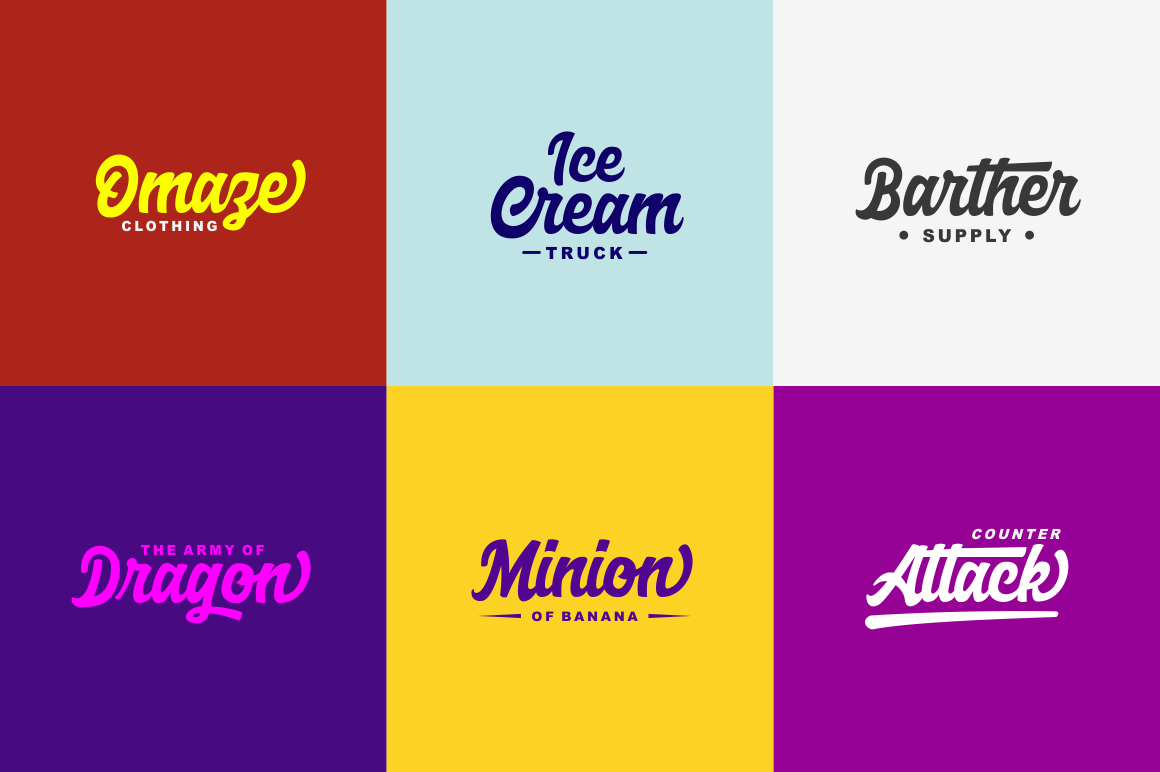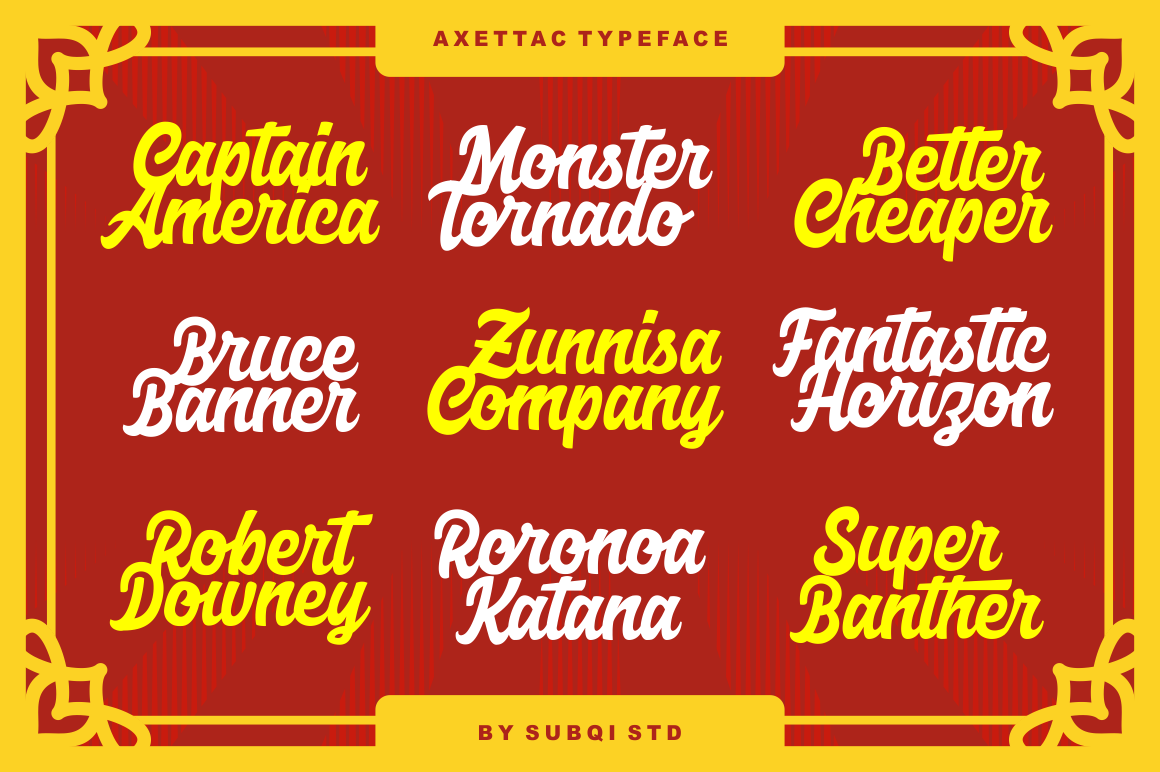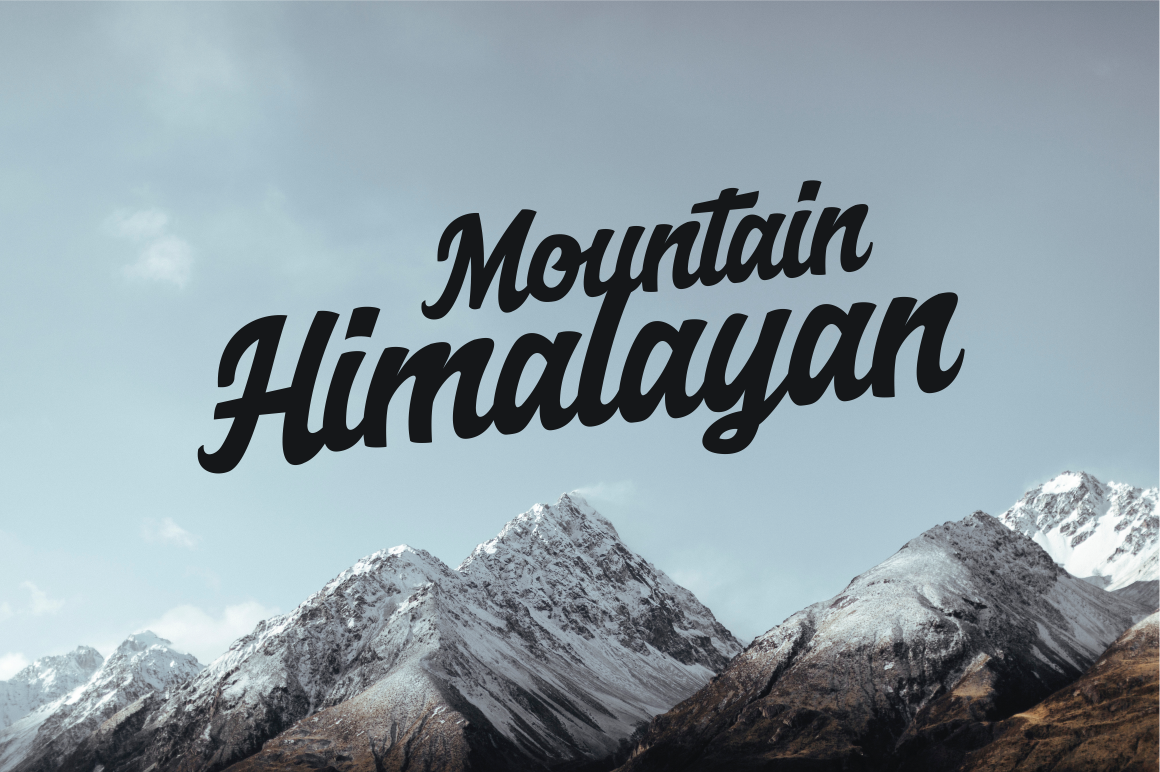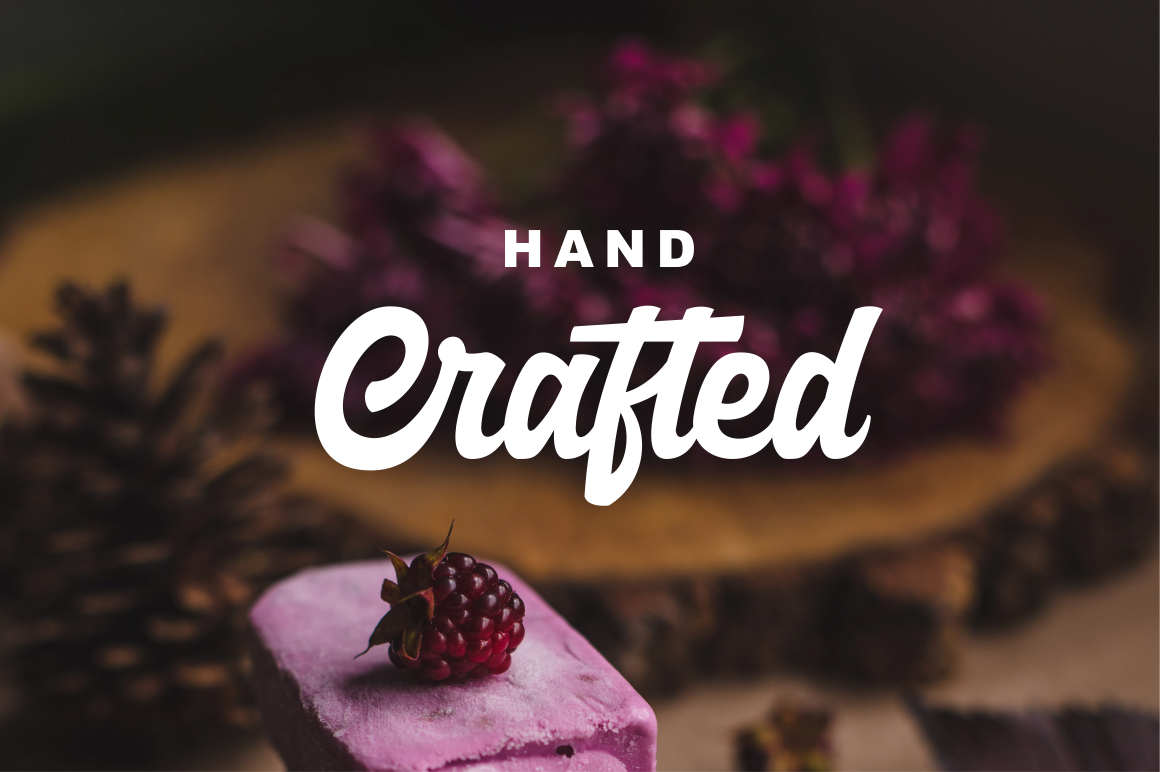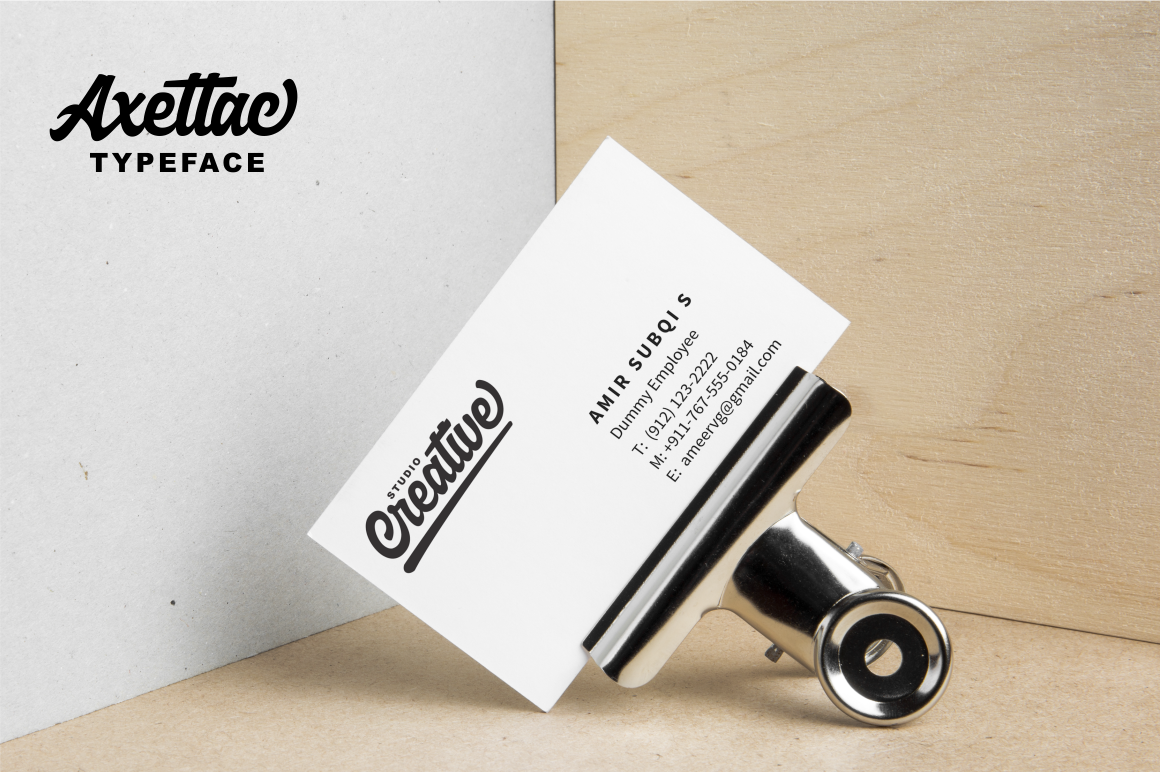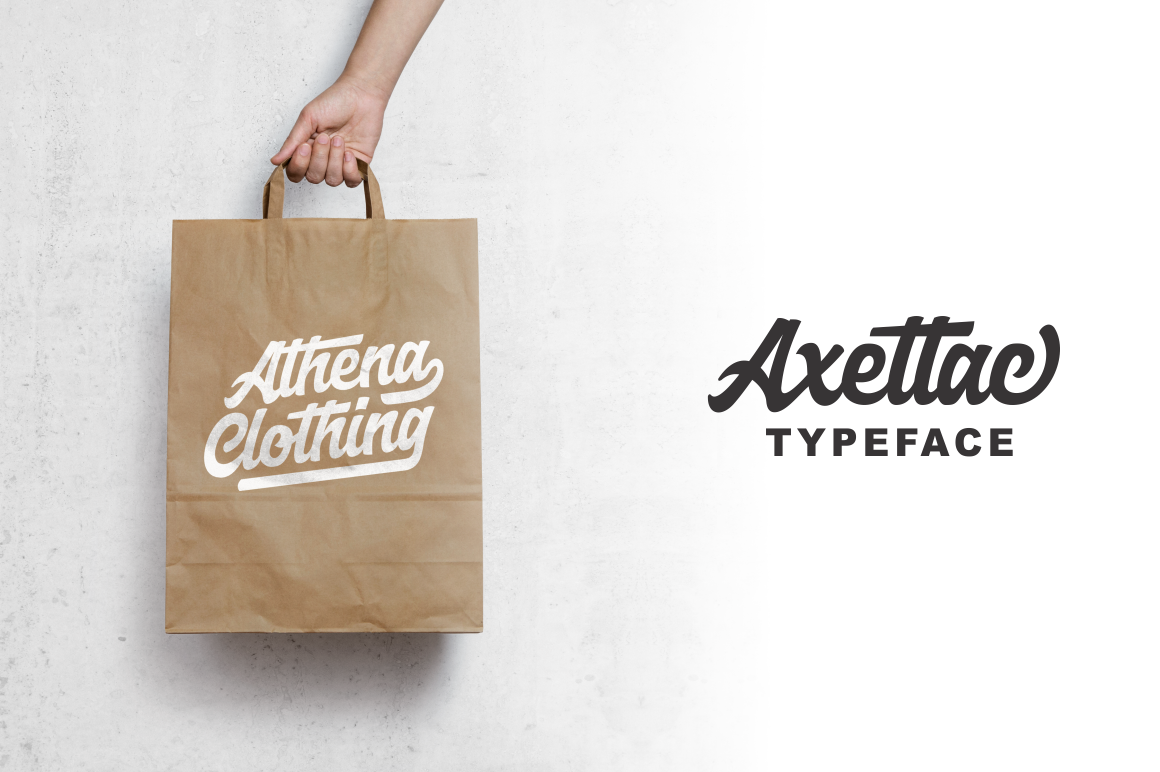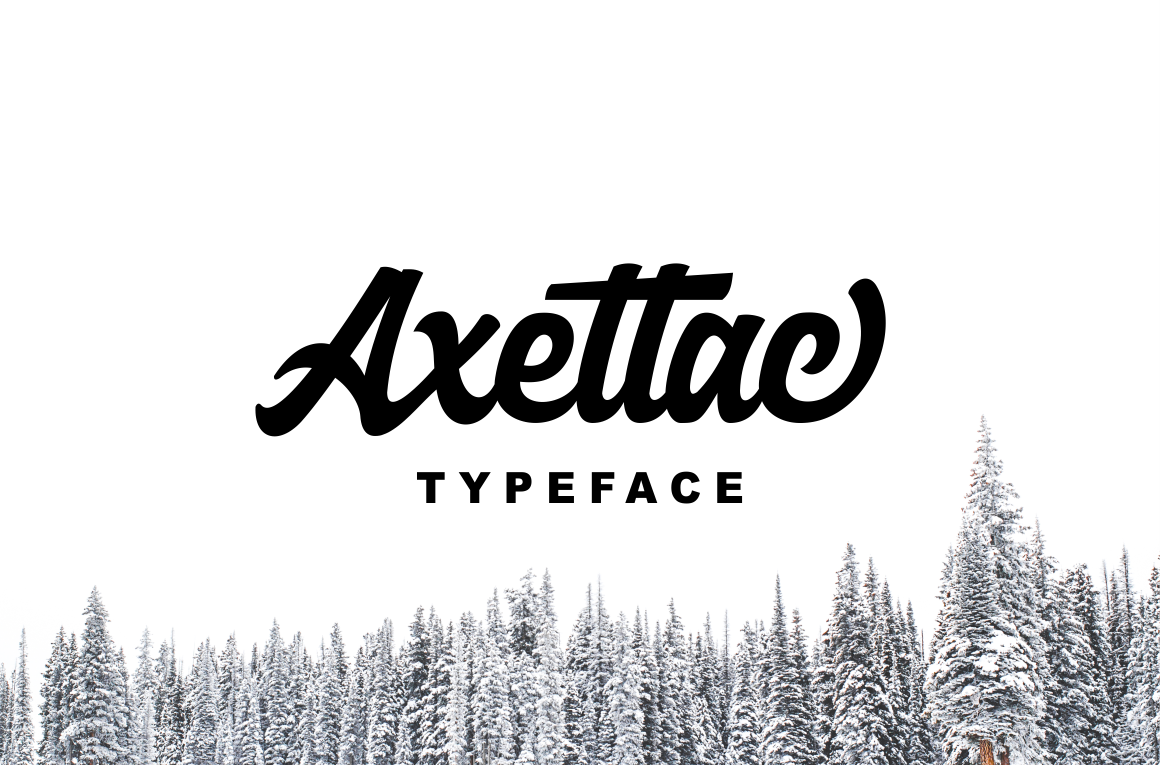
Introducing Axettac Font: The Bold and Daring Script for Creative Projects
Are you a designer or crafter looking for a font that makes a statement? Look no further than Axettac Font, a bold and daring script that’s perfect for logotypes, apparel, posters, and a wide range of creative projects. With its extra swashes and multilingual support, Axettac Font is the ideal choice for those who want to add a touch of personality and flair to their designs.
What is Axettac Font?
Axettac Font is a modern script font that’s designed to make a bold statement. Its unique and daring style is perfect for designers who want to create eye-catching logotypes, posters, and apparel that stand out from the crowd. With its flowing lines and dynamic swashes, Axettac Font adds a touch of elegance and sophistication to any design.
Key Features of Axettac Font
• Bold and Daring Style: Axettac Font features a bold and daring style that’s perfect for making a statement.
• Extra Swashes: The font comes with extra swashes that add a touch of elegance and sophistication to any design.
• Multilingual Support: Axettac Font supports multiple languages, making it a great choice for designers who work with international clients.
• Perfect for Logotypes, Apparel, and Posters: Axettac Font is specifically designed for logotypes, apparel, posters, and other creative projects that require a bold and daring style.
Why Choose Axettac Font?
There are many reasons why designers and crafters choose Axettac Font for their creative projects. Here are just a few:
• Unique and Eye-Catching: Axettac Font is a unique and eye-catching font that’s sure to grab attention.
• Versatile: The font is versatile and can be used for a wide range of creative projects, from logotypes and posters to apparel and more.
• Multilingual Support: The font supports multiple languages, making it a great choice for designers who work with international clients.
Tips and Tricks for Using Axettac Font
Here are some tips and tricks for using Axettac Font:
• Use it for Headlines: Axettac Font is perfect for headlines and titles.
• Add Swashes: Add swashes to give your design a touch of elegance and sophistication.
• Experiment with Colors: Experiment with different colors to find the perfect combination for your design.
• Pair it with Other Fonts: Pair Axettac Font with other fonts to create a unique and eye-catching design.
Axettac Font is a bold and daring script that’s perfect for designers and crafters who want to add a touch of personality and flair to their designs. With its extra swashes and multilingual support, Axettac Font is the ideal choice for logotypes, apparel, posters, and a wide range of creative projects. Whether you’re a professional designer or a crafter, Axettac Font is a great addition to your font collection.